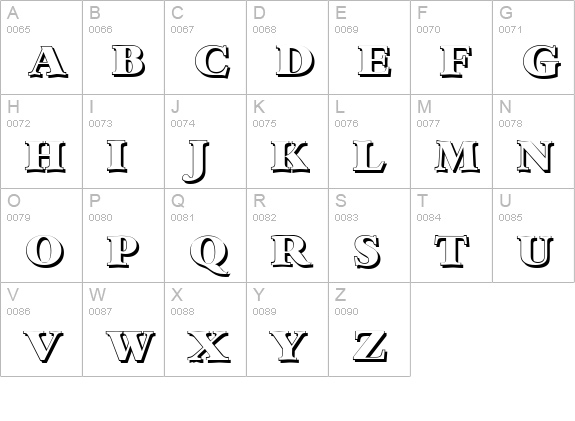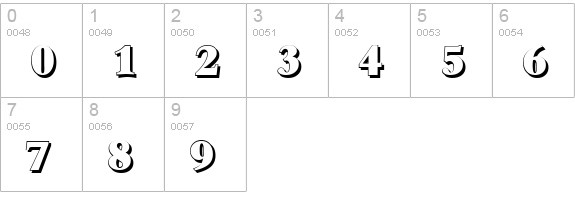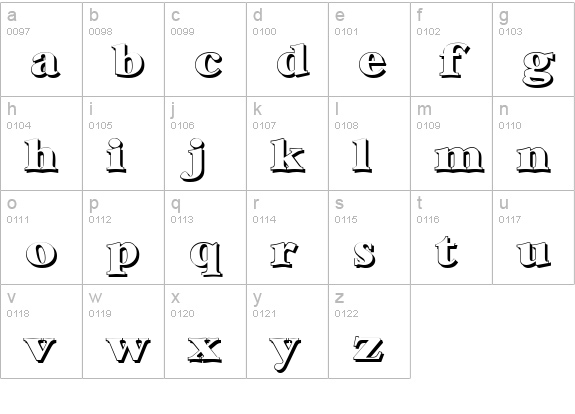
BernsteinShadow-Heavy-Regular Font Details
BernsteinShadow-Heavy-Regular is a heavy, high-impact variant in the BernsteinShadow typeface family \xE2\x80\x94 well suited to high-impact headlines, posters, and display advertising.
BernsteinShadow-Heavy-Regular is a stunning display font that exudes a sense of mystery and sophistication. With its bold, shadowed letterforms, this typeface is perfect for making a statement in headlines, logos, posters, and more. The strong contrast between the thick strokes and delicate shadow effects creates a visually striking aesthetic that commands attention. This font is versatile and can be used for a wide range of design projects, from branding to editorial design. Whether you're looking to add a touch of drama to your designs or create a bold and impactful visual identity, BernsteinShadow-Heavy-Regular is sure to deliver. Best of all, this font is free to download at FontsMarket.com. So go ahead and elevate your designs with this unique and eye-catching typeface today!